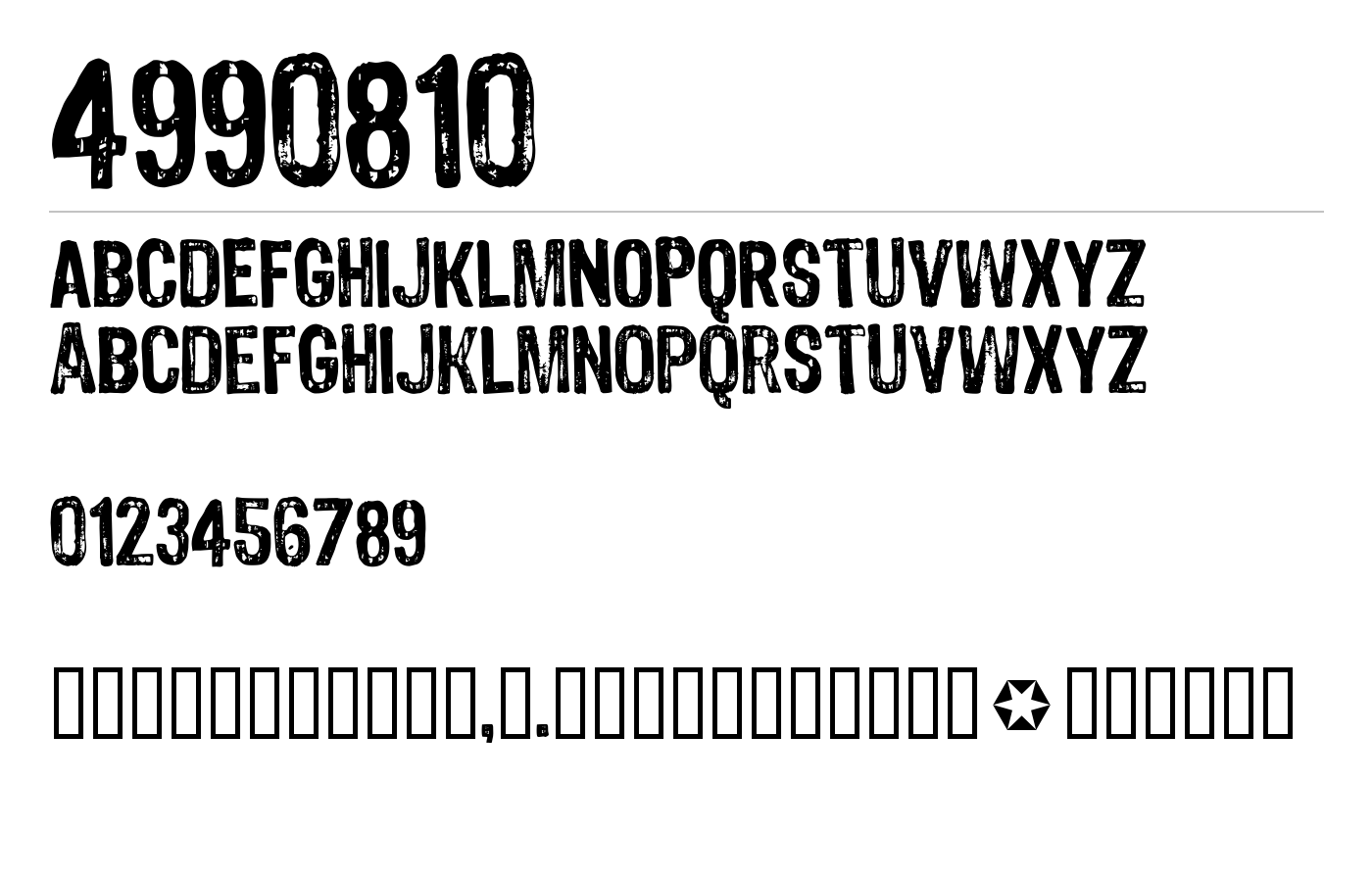
4990810 Font is a bold, condensed sans serif typeface with a distressed, textured style that gives it a rugged, vintage feel. Its tall, narrow letterforms and worn edges make it perfect for creating strong, attention-grabbing headlines and designs with an industrial or grunge aesthetic. This font works well for posters, branding related to outdoor or rebellious themes, and any project needing a bold, impactful look with character.
4990810 Font
About 4990810 Font